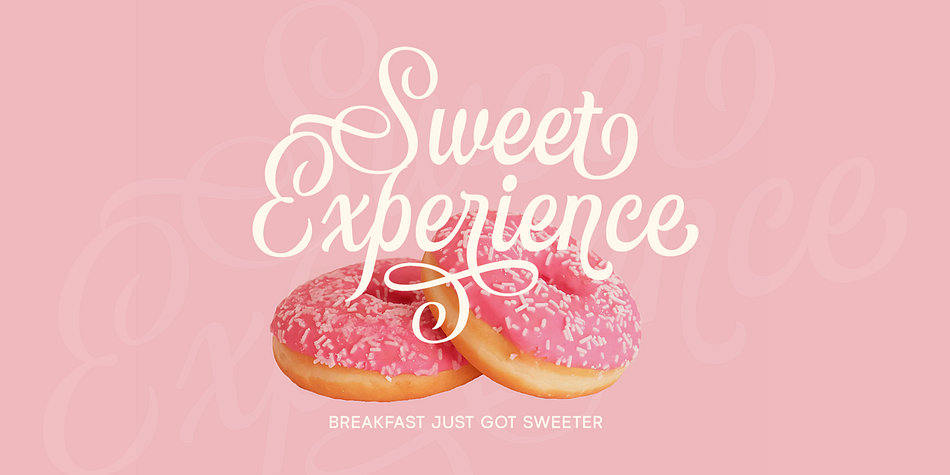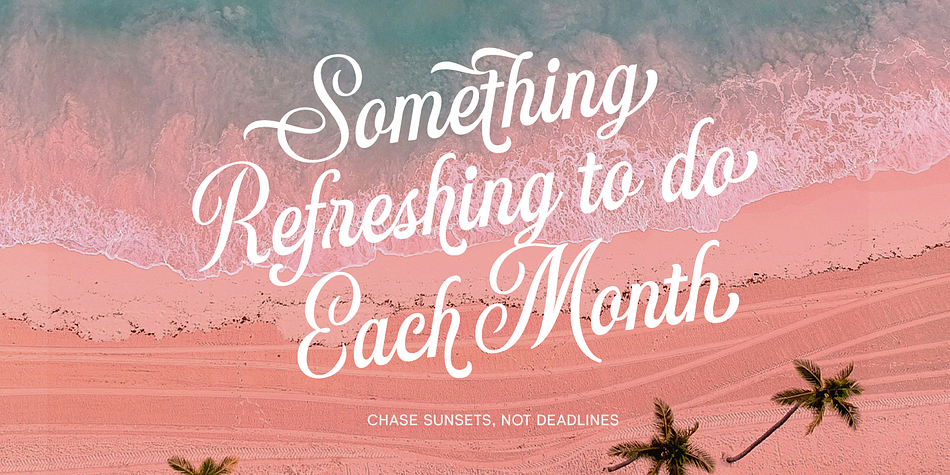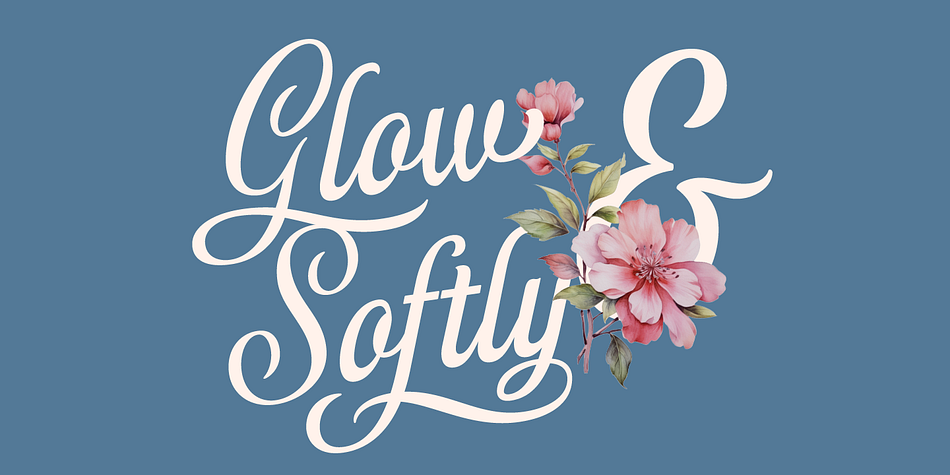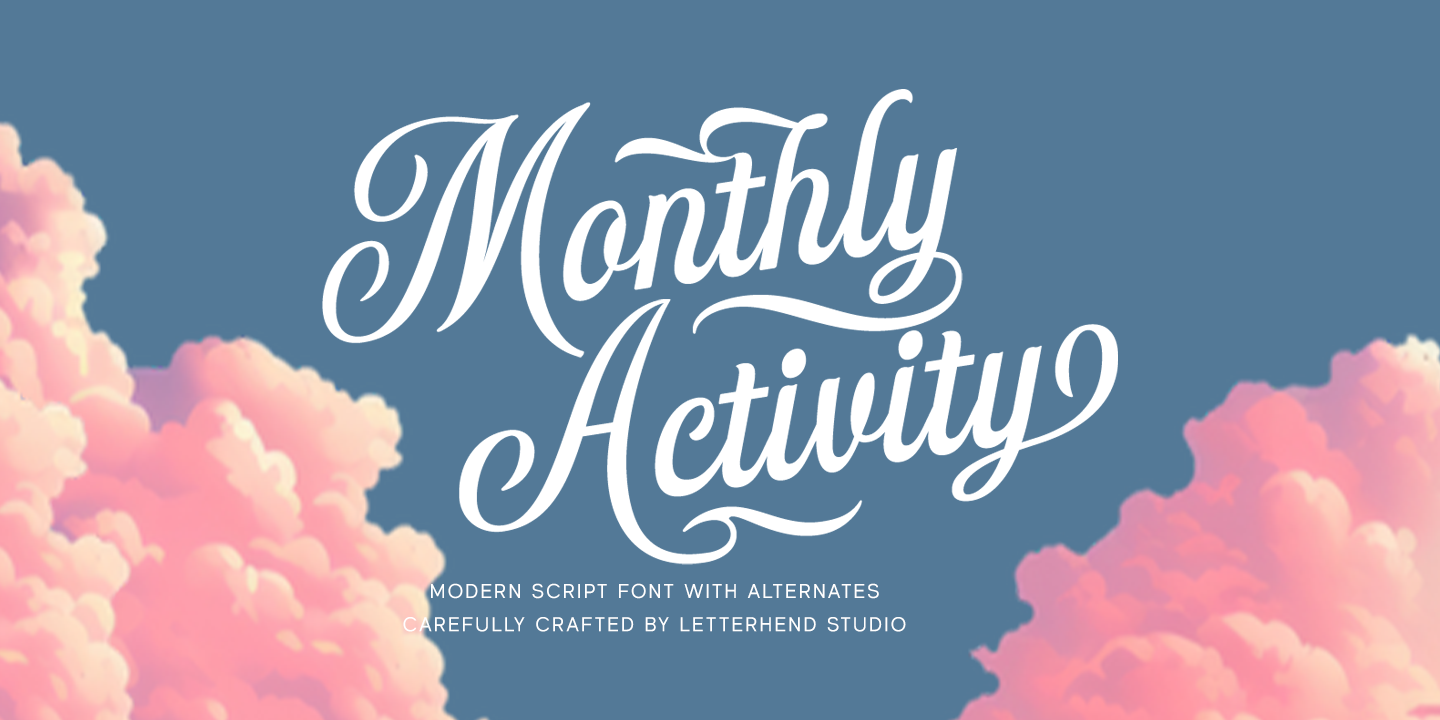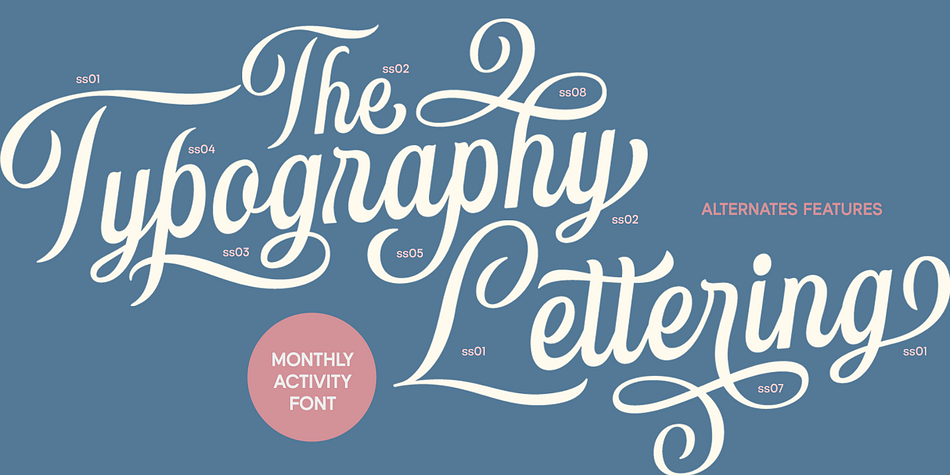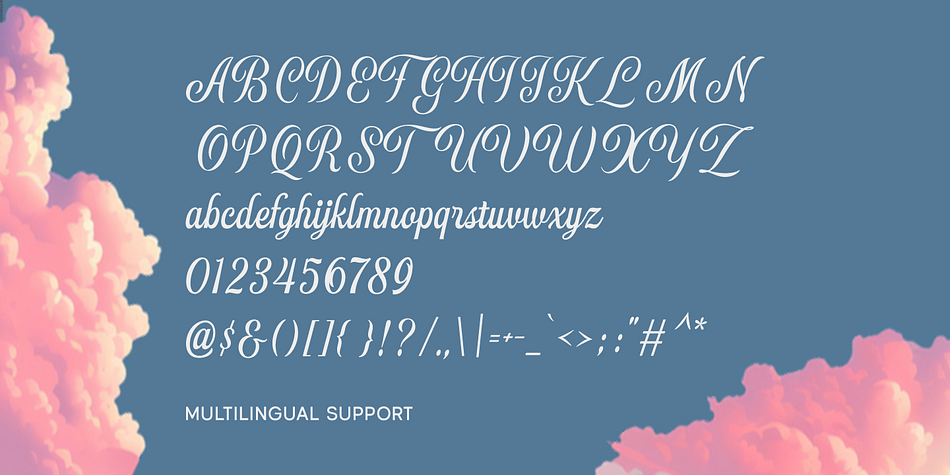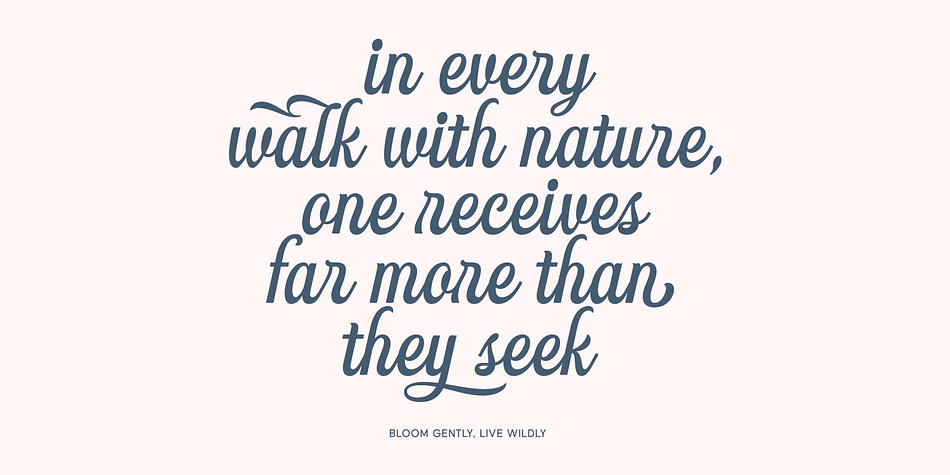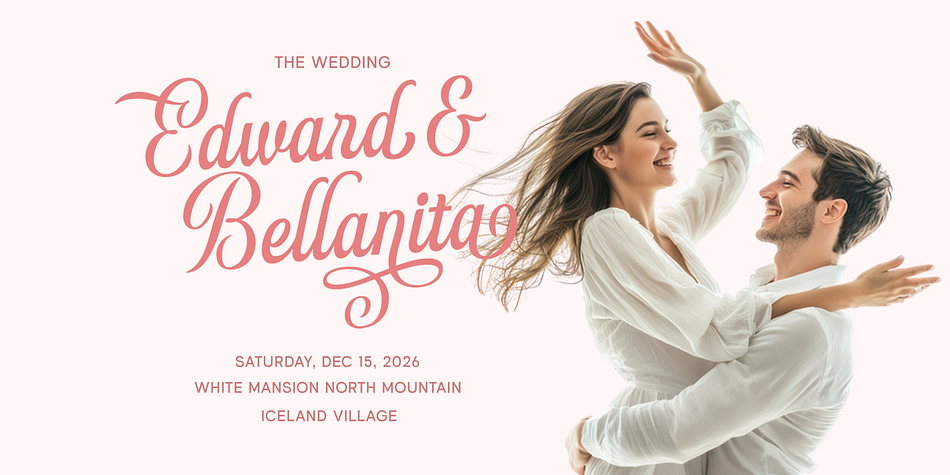
Monthly Activity
Designed by Hendry Juanda, Monthly Activity is a script font family published by Letterhend Studio.
Monthly Activity is a modern script font that blends classic elegance with a contemporary flair. Designed with smooth strokes and flowing letterforms, it includes various alternate characters to give your design a dynamic and expressive touch. Perfect for branding, packaging, invitations, and social media posts that need a feminine, elegant, and approachable look.
- Alternates & Ligatures
- Multilingual Support